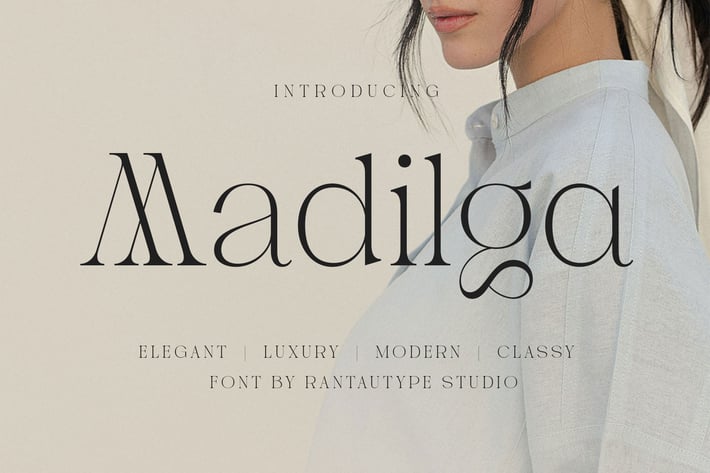
Madilga Classy Luxury Serif Font
Madilga is Classy luxury serif font with beautiful typographic harmony. Madilga come with sleek shape and perfect curves. Madilga bring touch of sophistication to your design project. Madilga is a professional choice for any creative endeavor, chic, lifestyle design such as logotype, advertisements, watermark on photography, stationery, branding project, display and magazine, invitation, corporate brand, product design, label, business project and many other project with luxury touch.